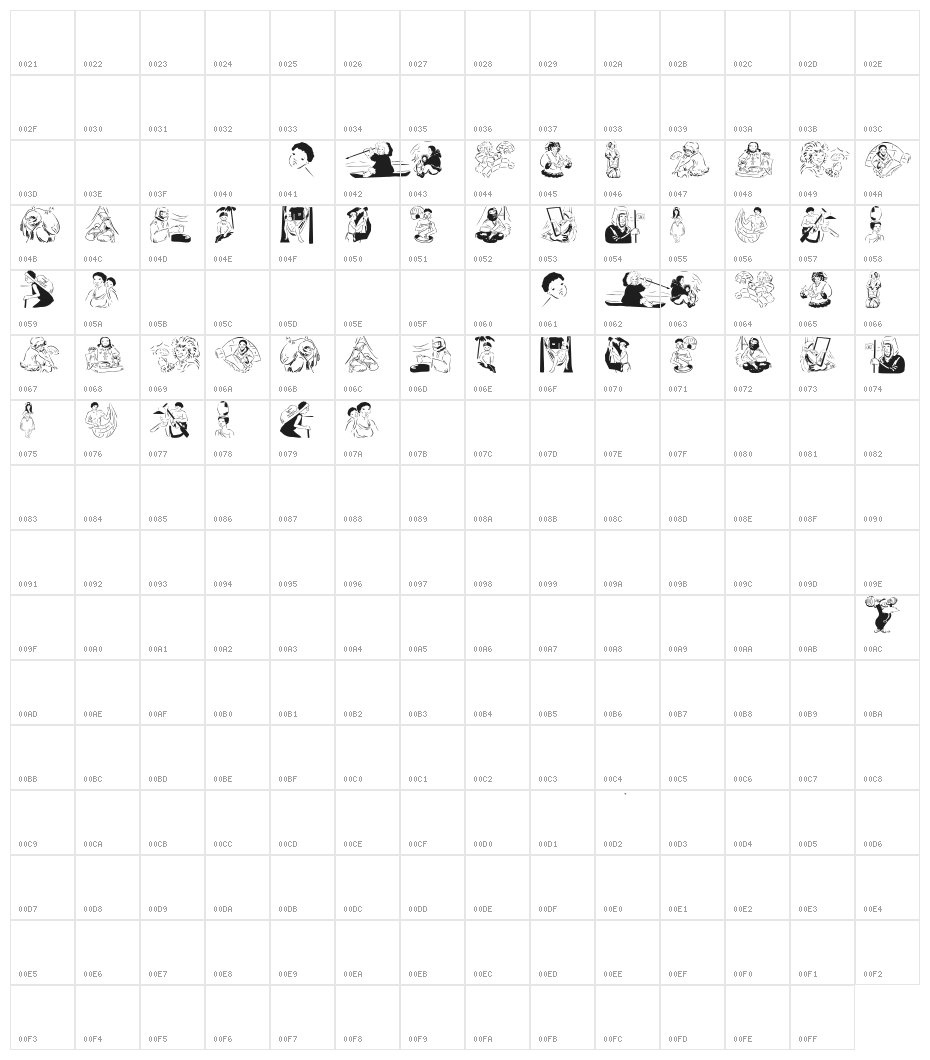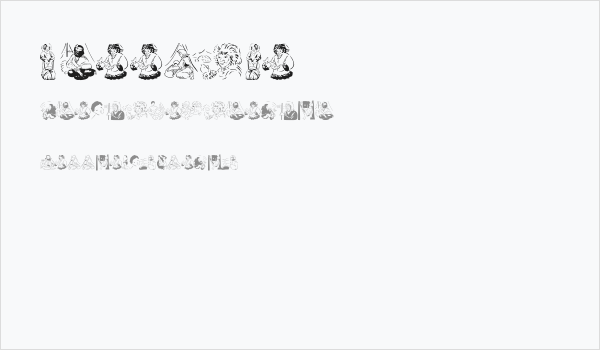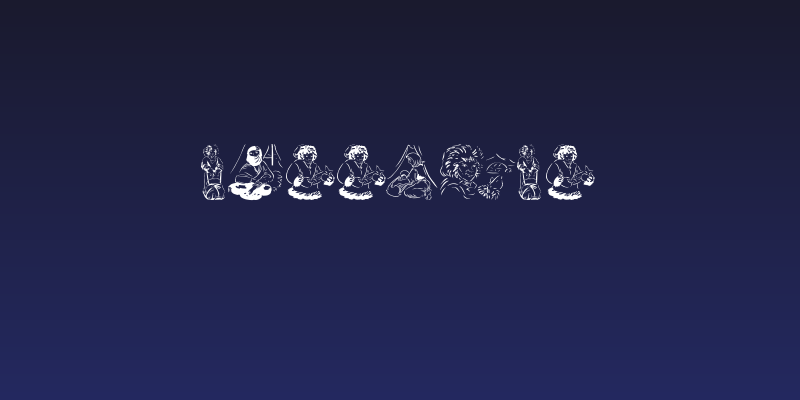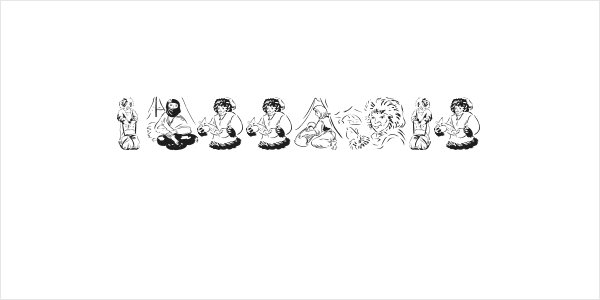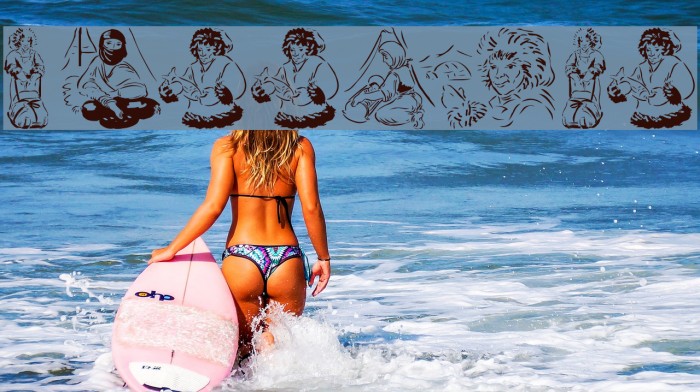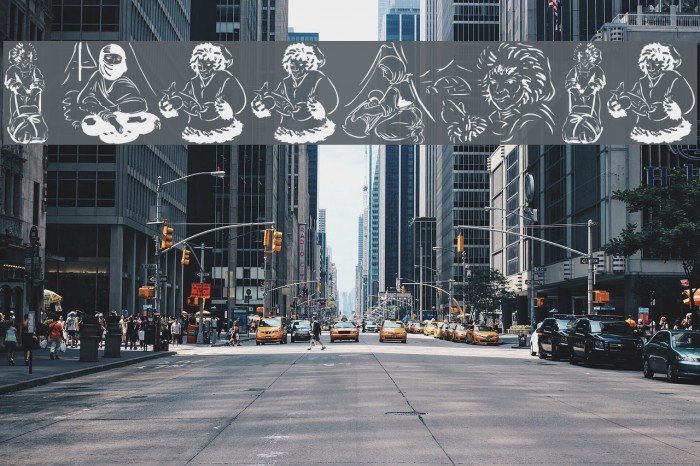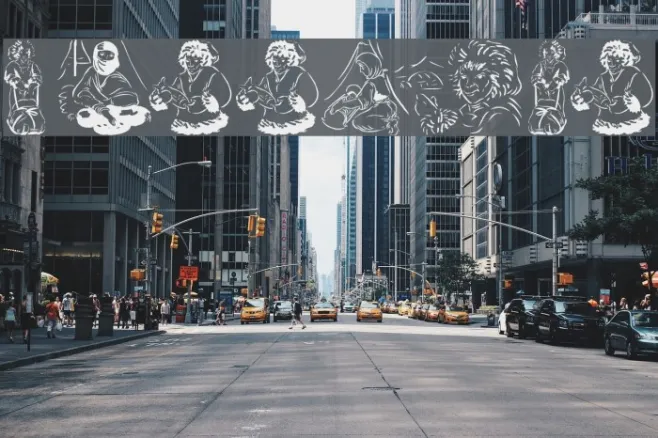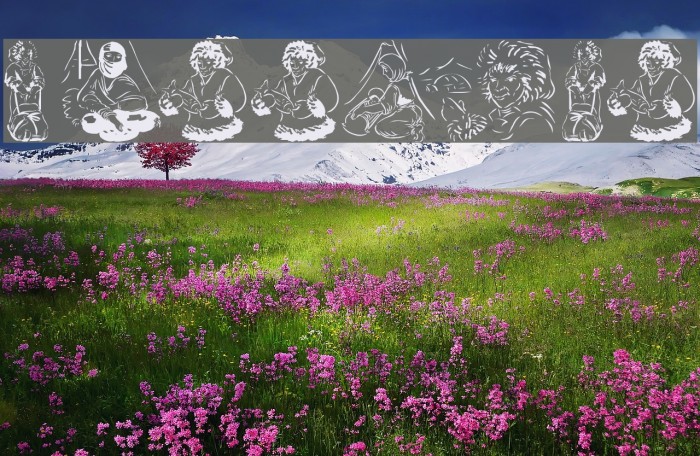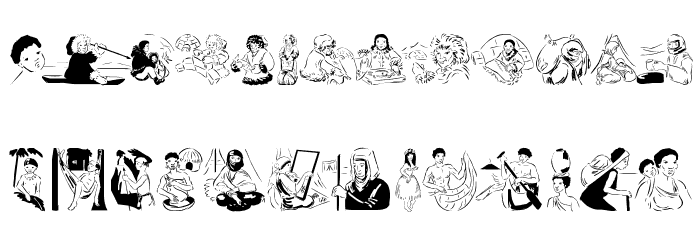
FreeLife Font
FreeLife Description
This font is a unique and artistic representation where each letter is formed by intricate illustrations of people engaged in various activities. The characters are highly detailed, creating a visually engaging experience that blends typography with art. Each letter is distinct, showcasing different scenes and figures, making it a decorative and expressive choice. The font captures a sense of storytelling, with each character offering a glimpse into a different narrative. This creative approach makes it stand out as a display font, ideal for projects that require a strong visual impact.
| Overall Style | Artistic, Illustrative |
| Use Case | Headlines, Artistic projects, Posters |
| Proposed Projects | Ideal for artistic projects, posters, book covers, or any design that benefits from a narrative or illustrative element. |